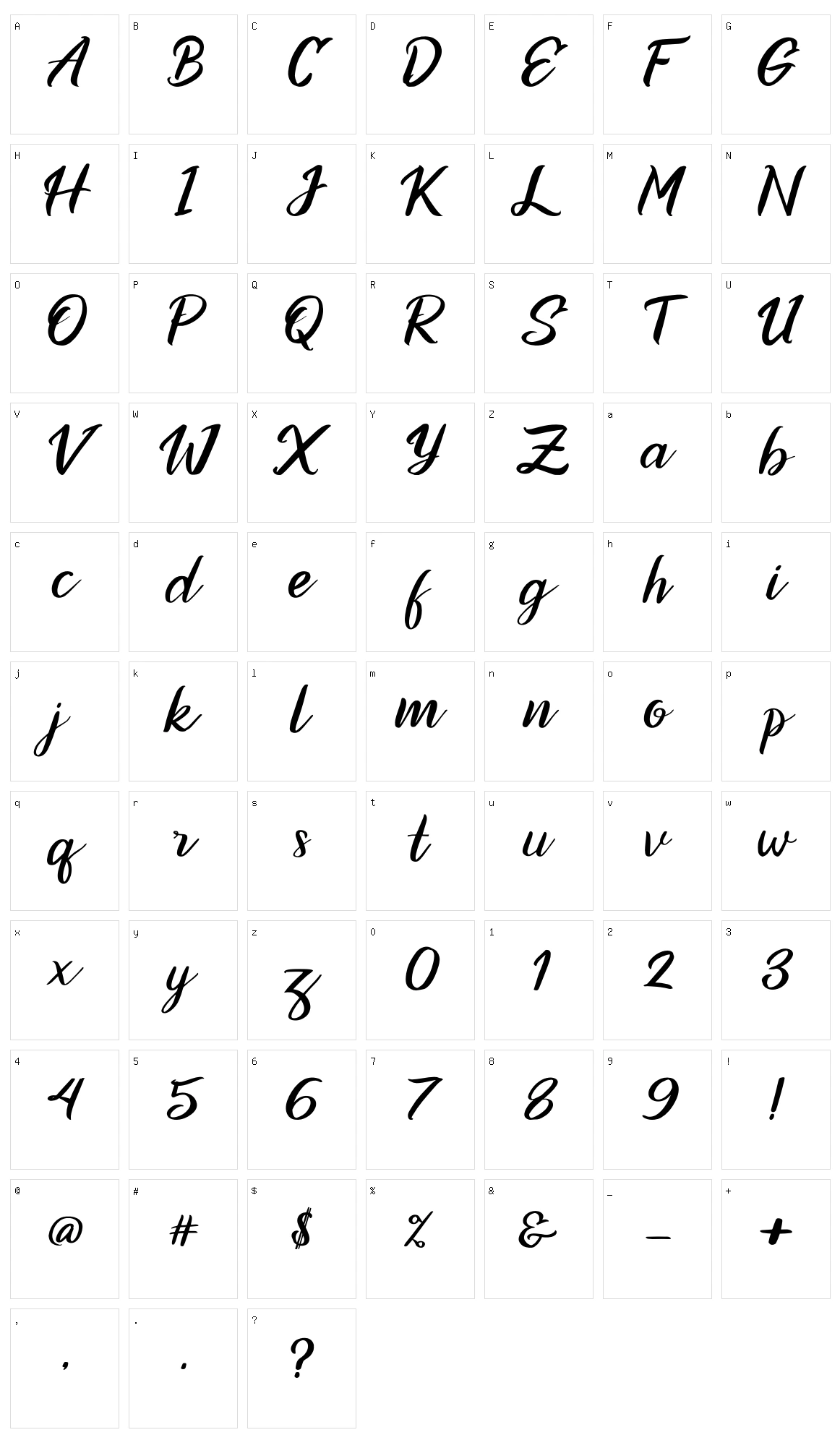
Calligraphy font. It has an elegant style which is perfect for adding a luxurious look to your designs and easly for edit, suitable for a variety of your designs.